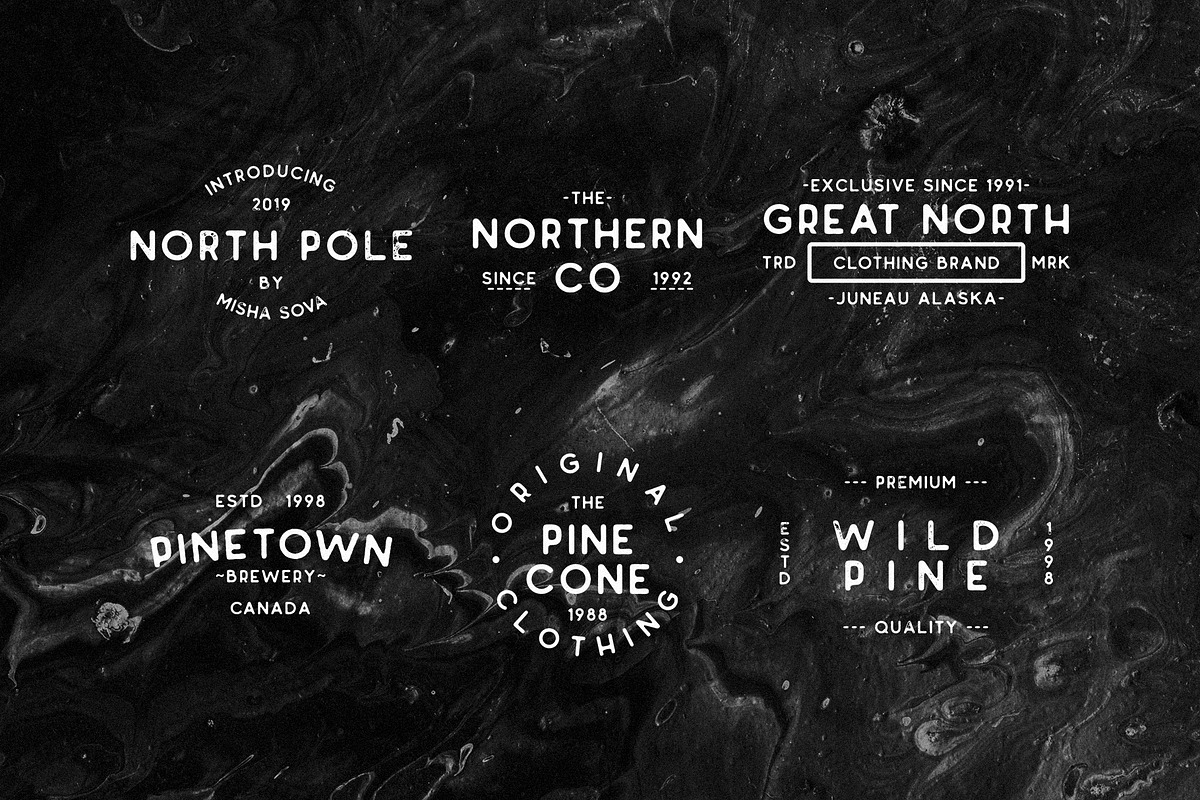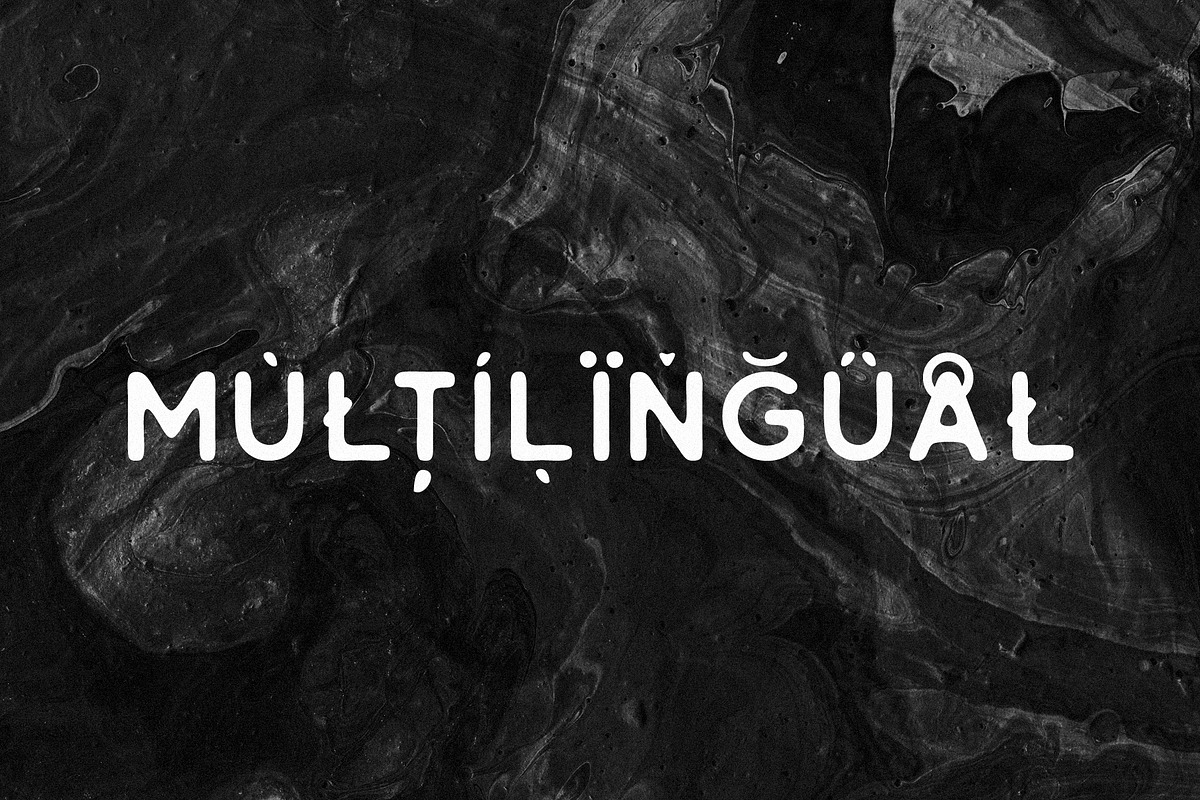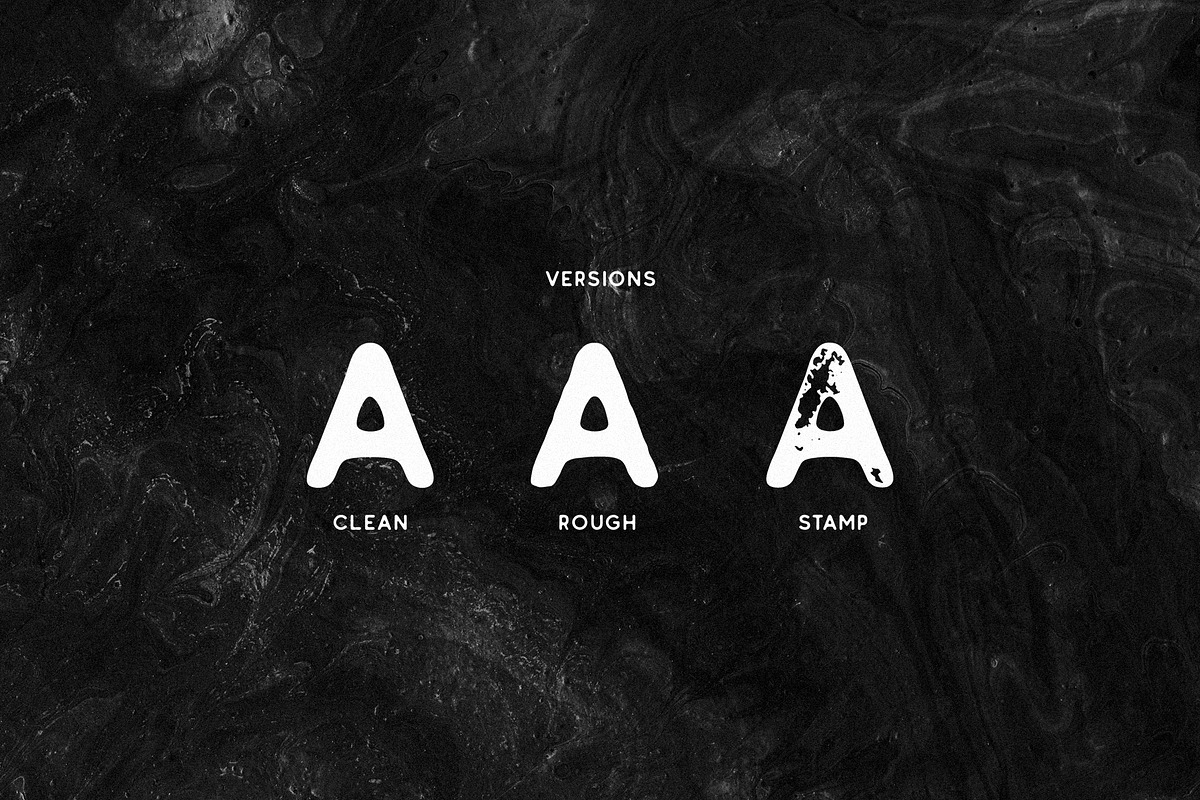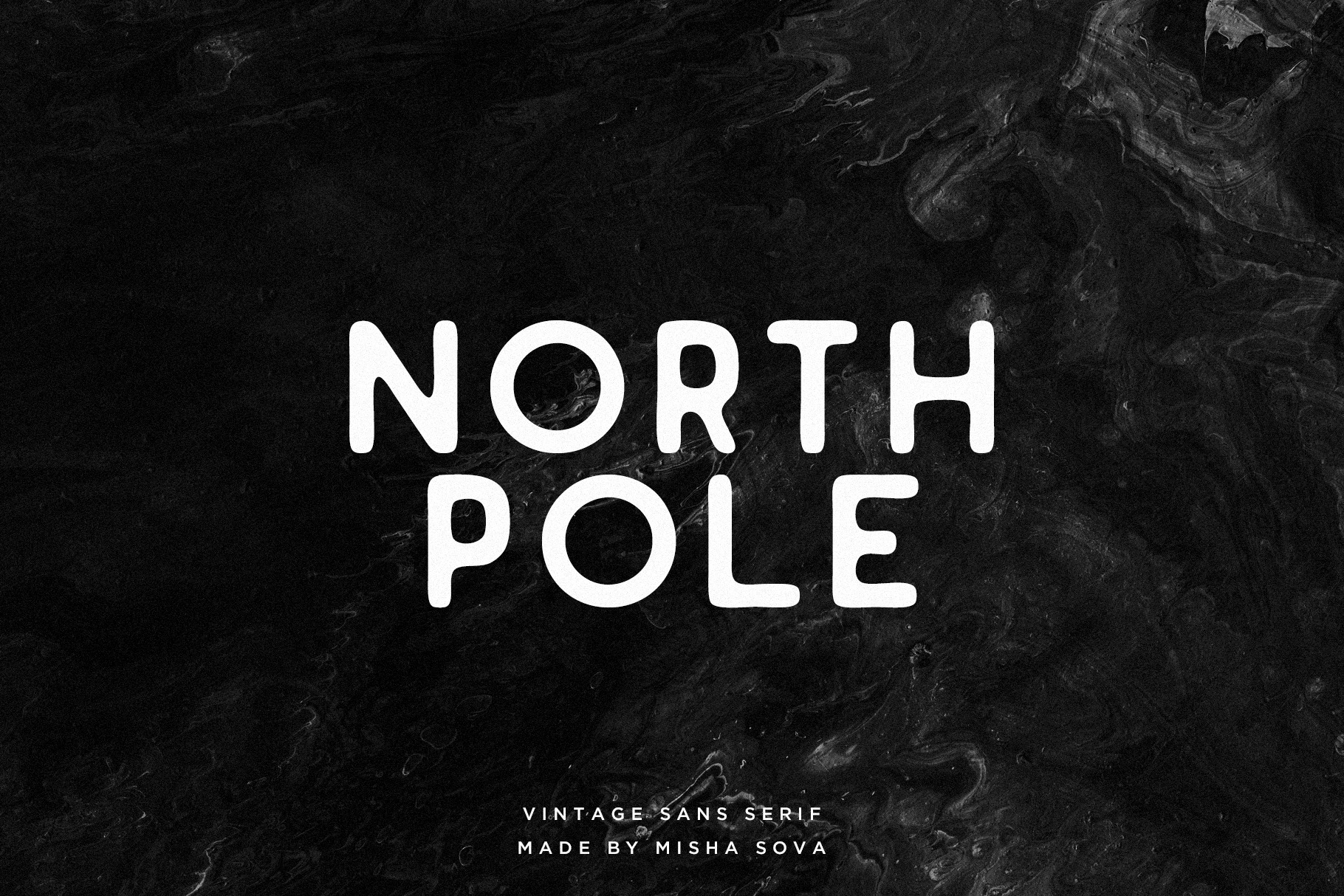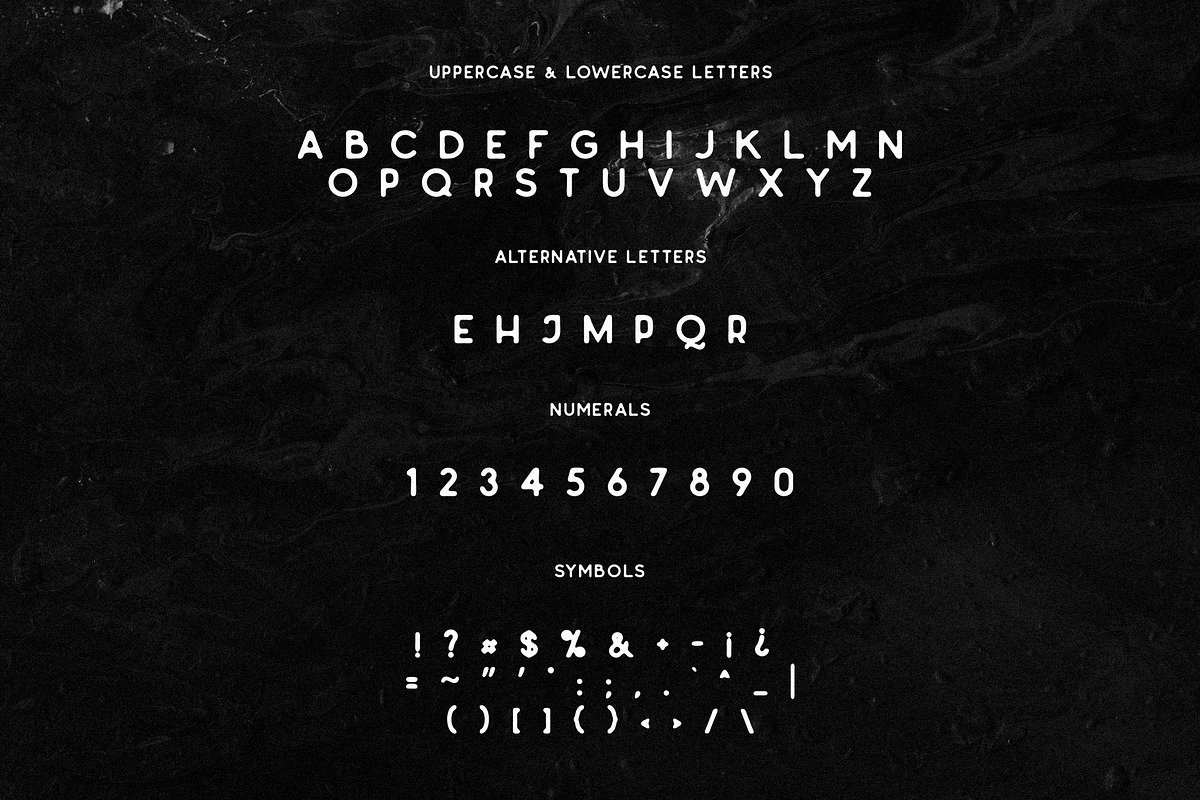
North Pole Font + Extras
North Pole is a sans serif display font. The main goal was to bring vintage feelings and uniqueness to the font by creating a similarity to a classical sans serif fonts & adding special alternative letters. The font is great for posters, logos, t-shirts & etc.
- North Pole
- North Pole Rough
- North Pole Stamp
Very great font ! I love its natural and vintage feel. Thank you very much for the updated version. In case of a third update, I just wanted to add that the only one thing I regret is your version of " ^ " circumflex accent made of two separate parts, wich is very confusing when in use in French language.